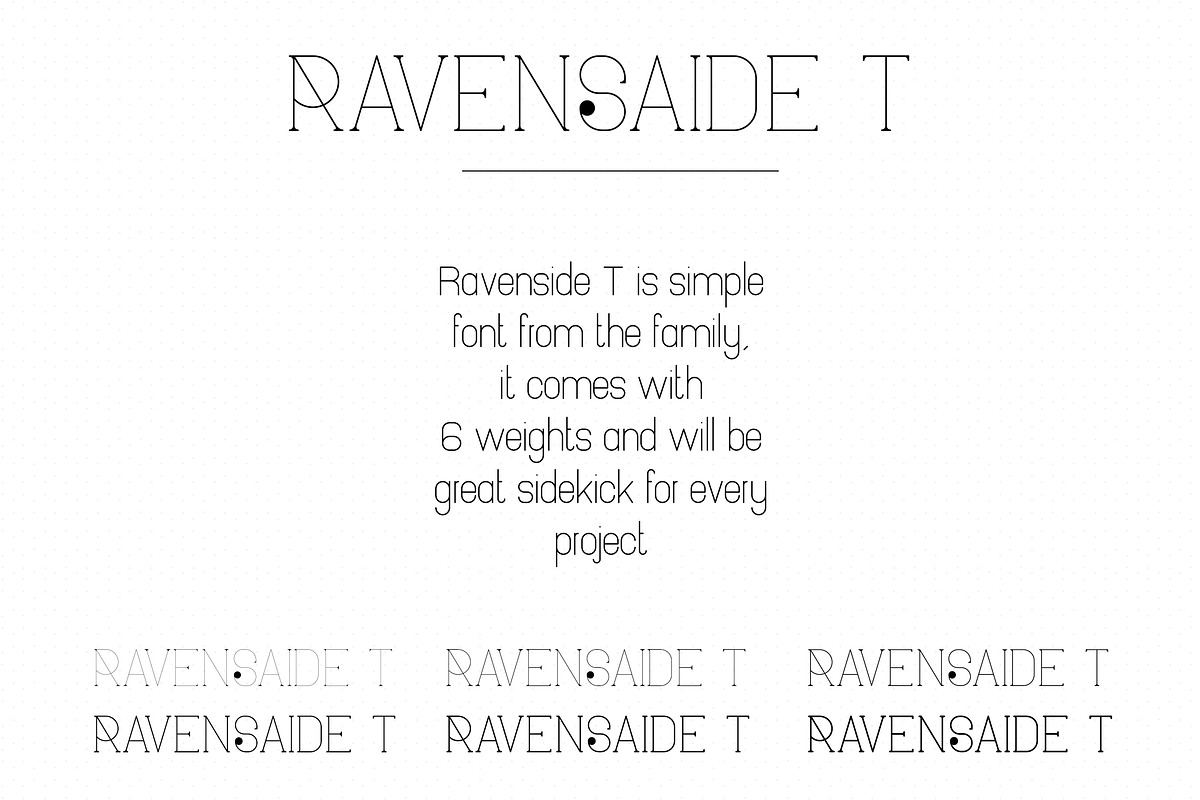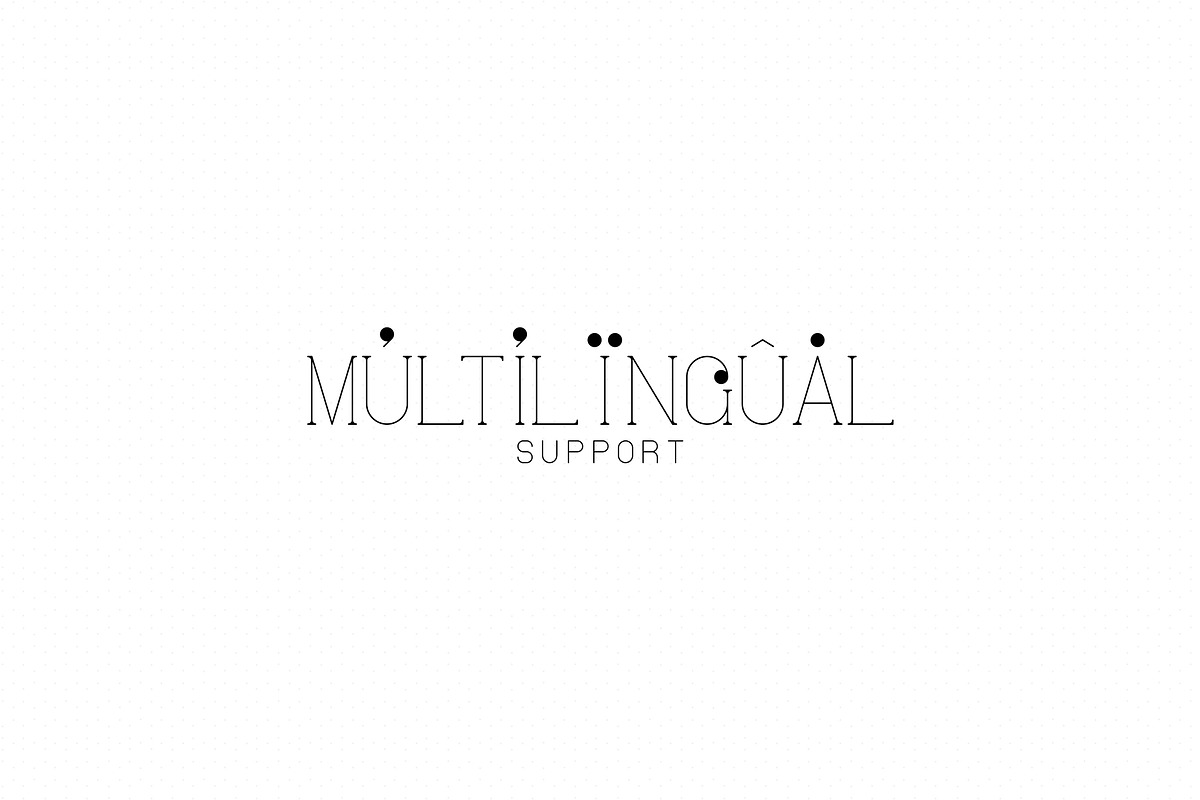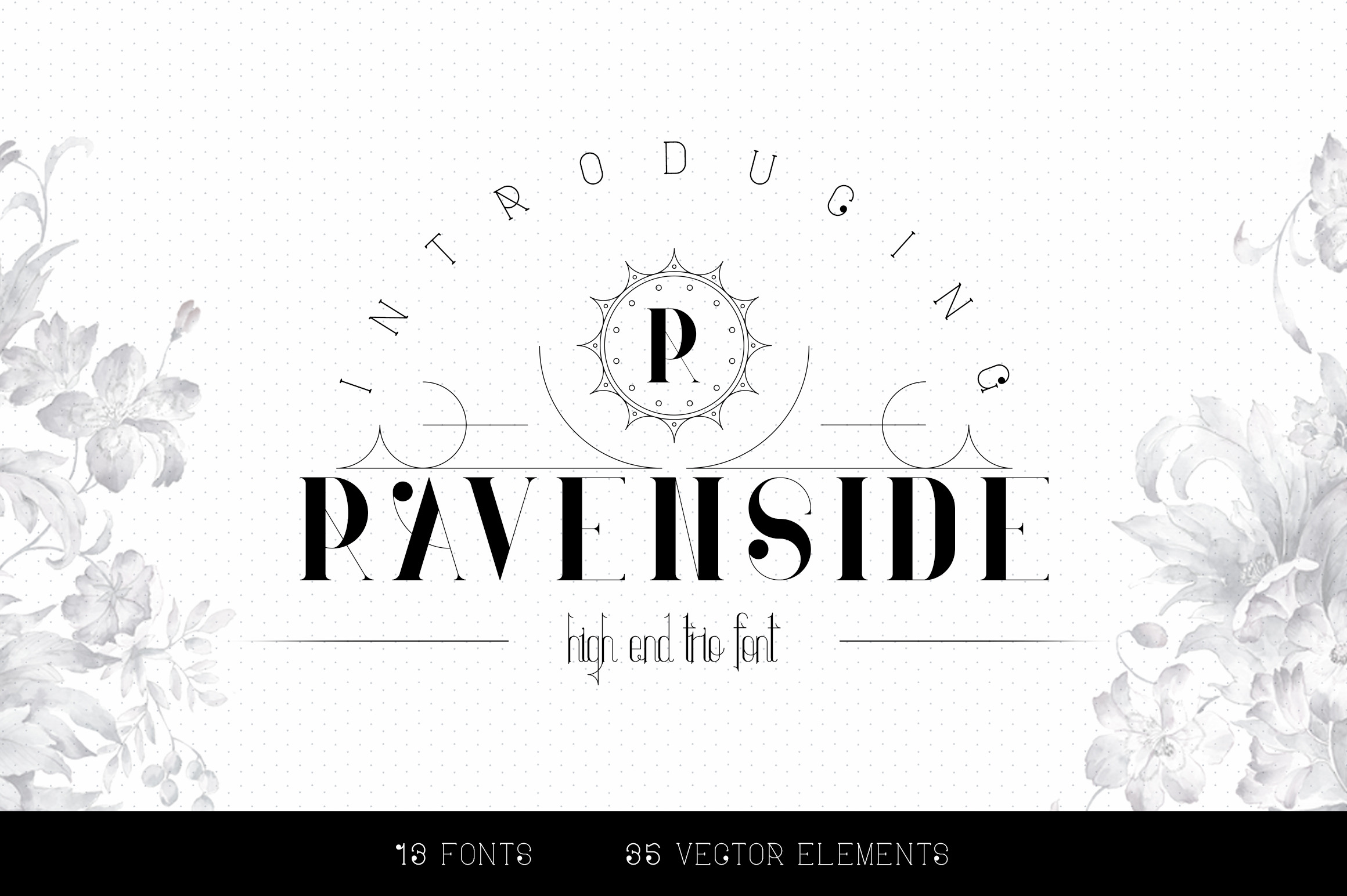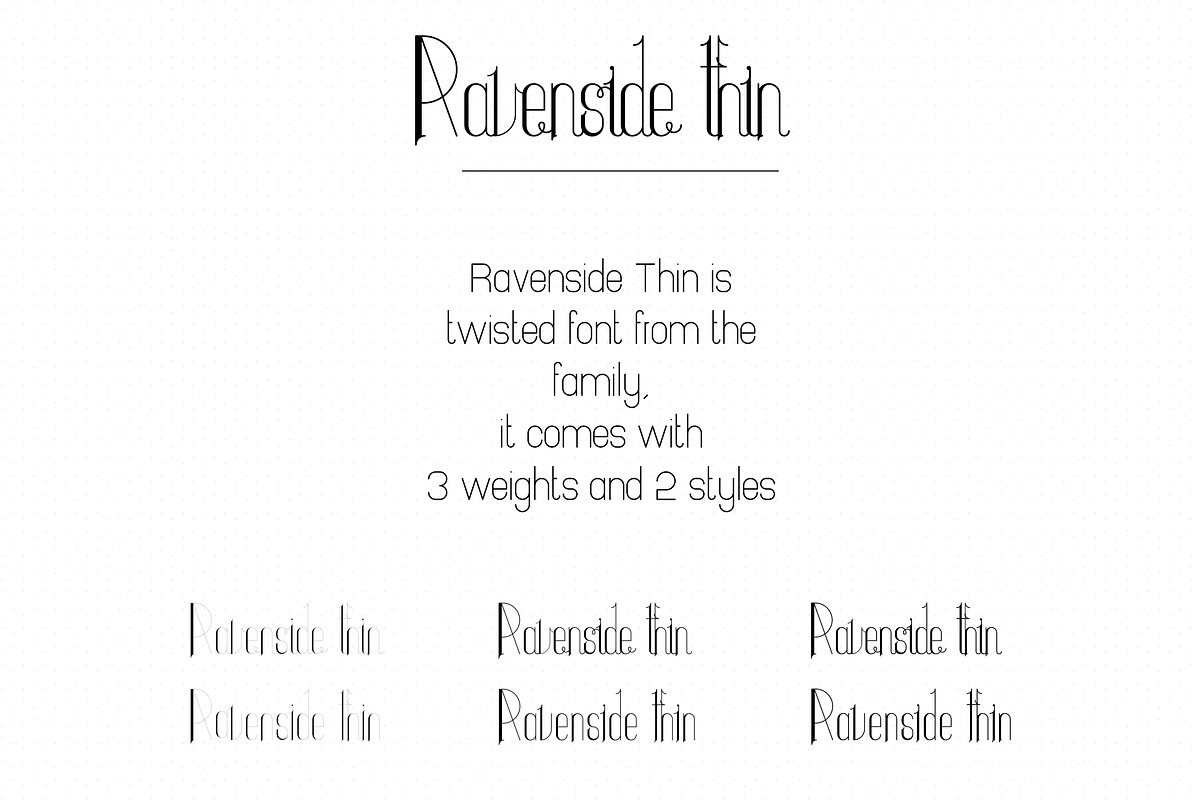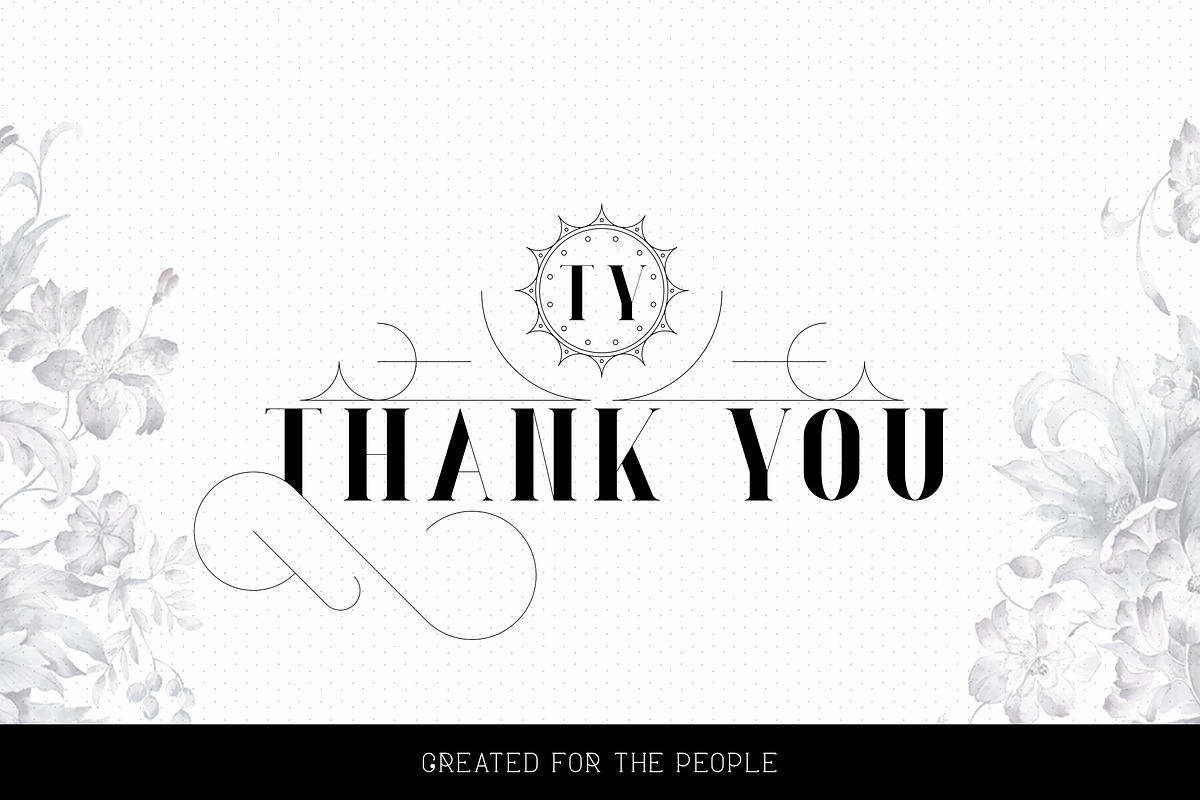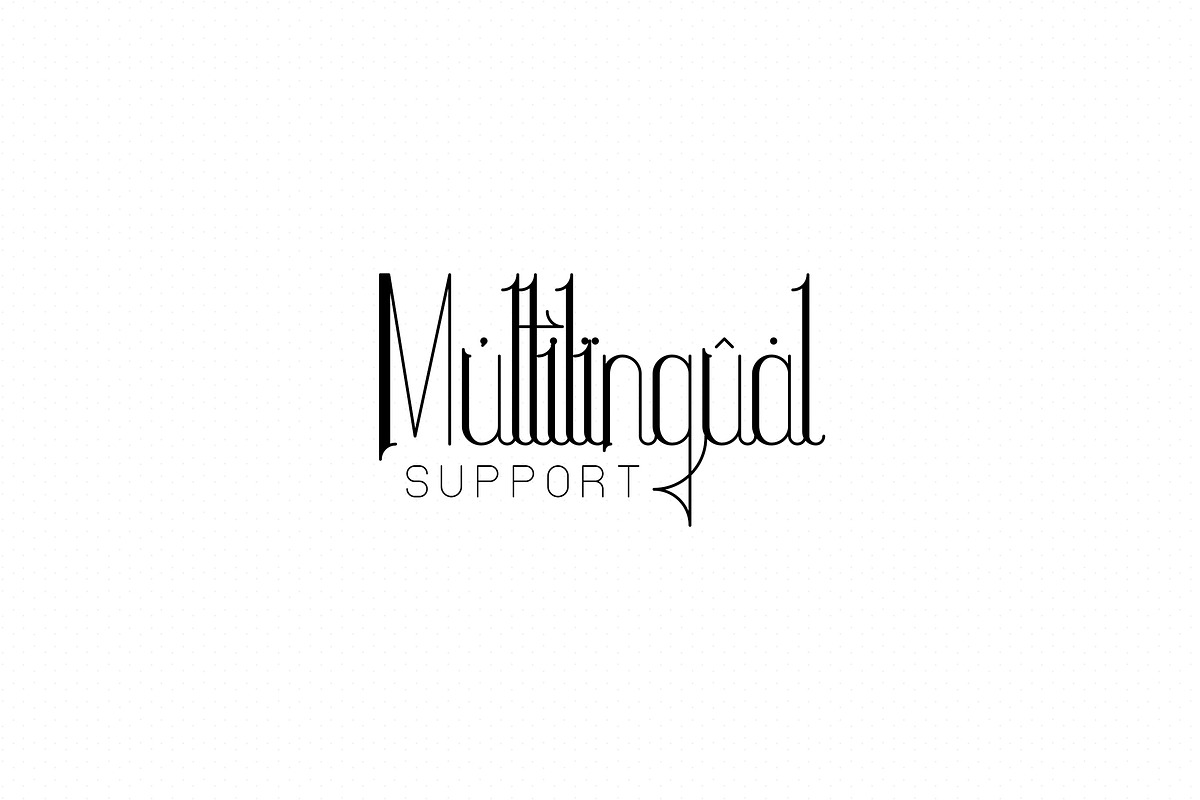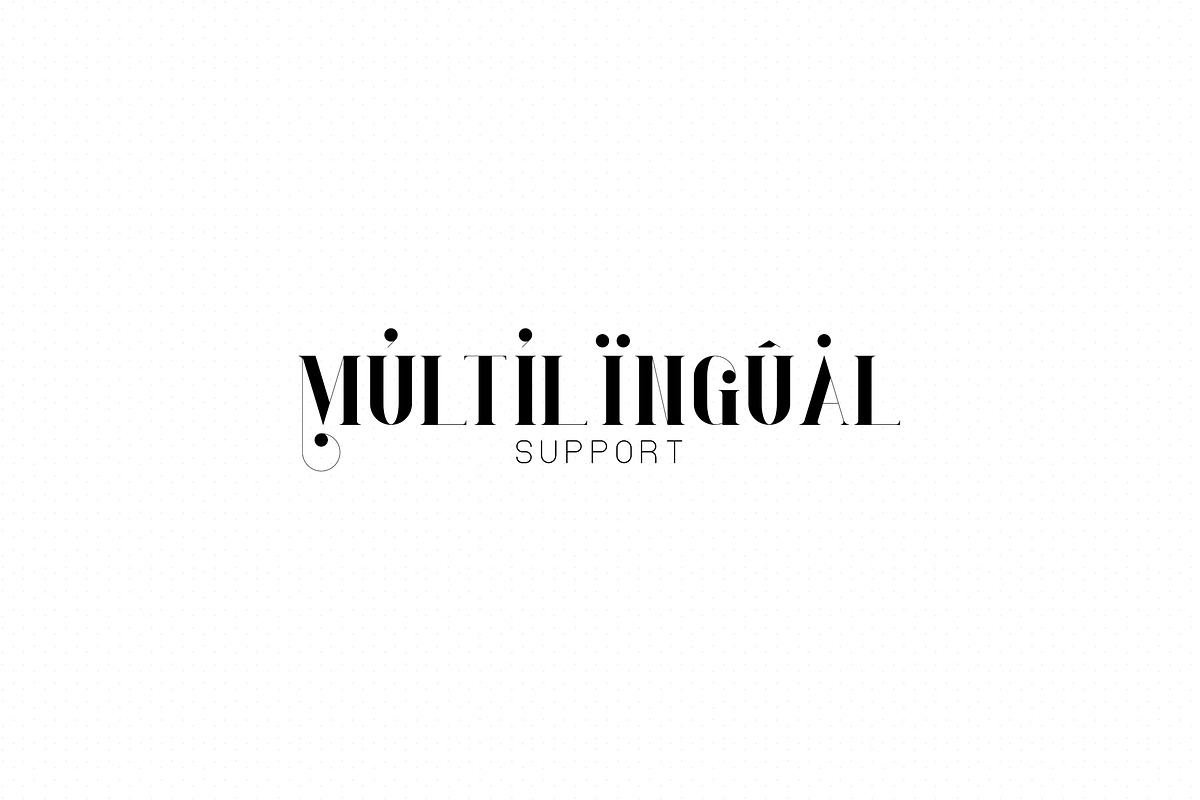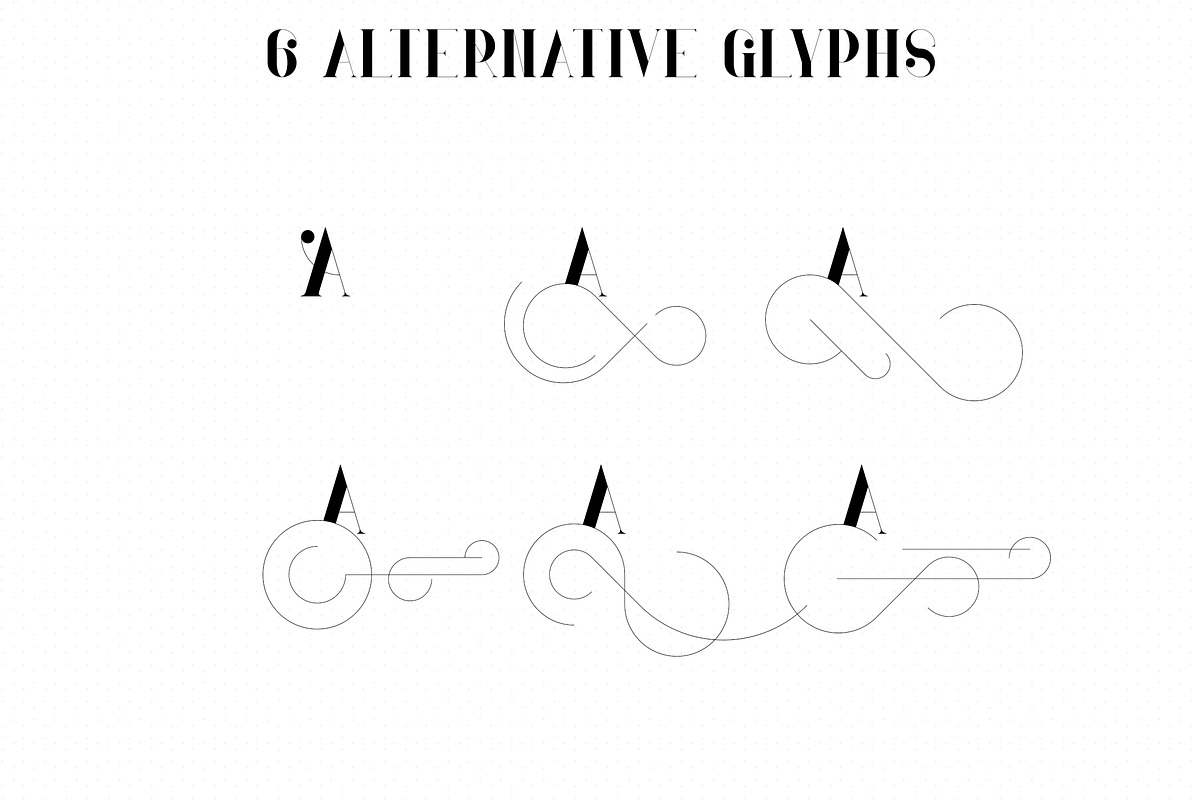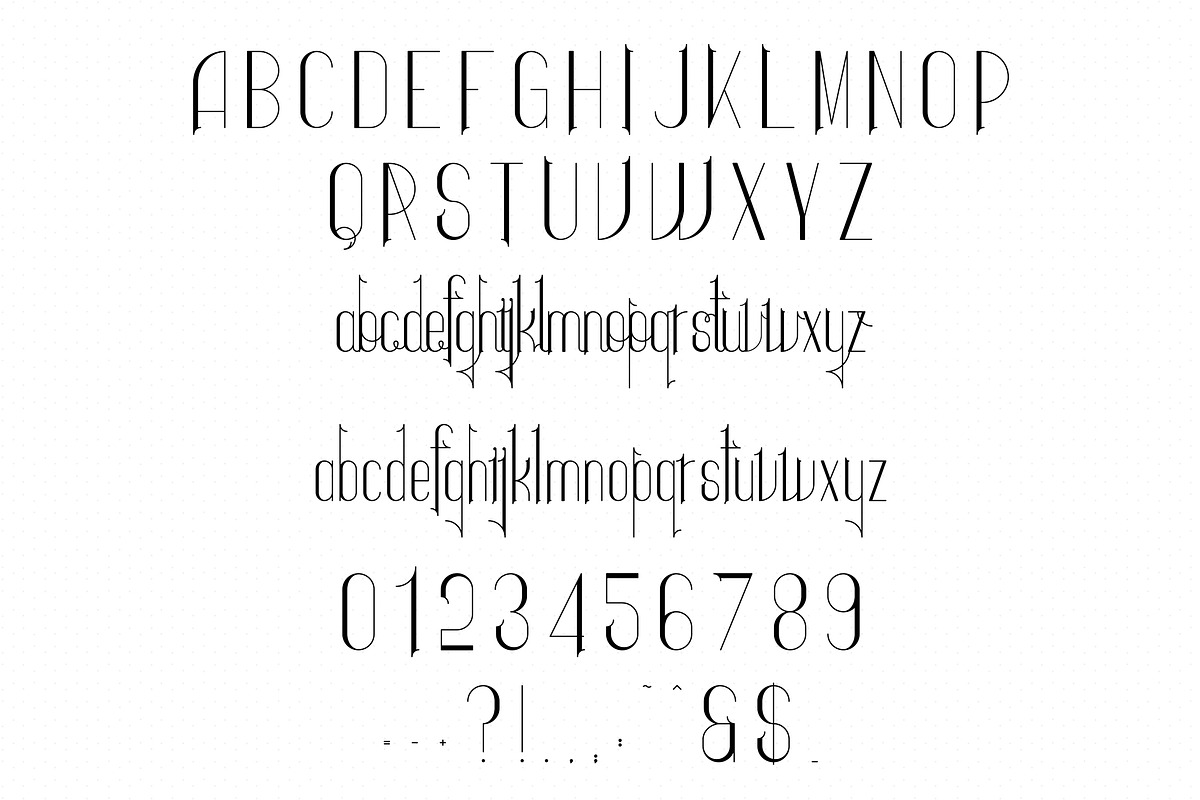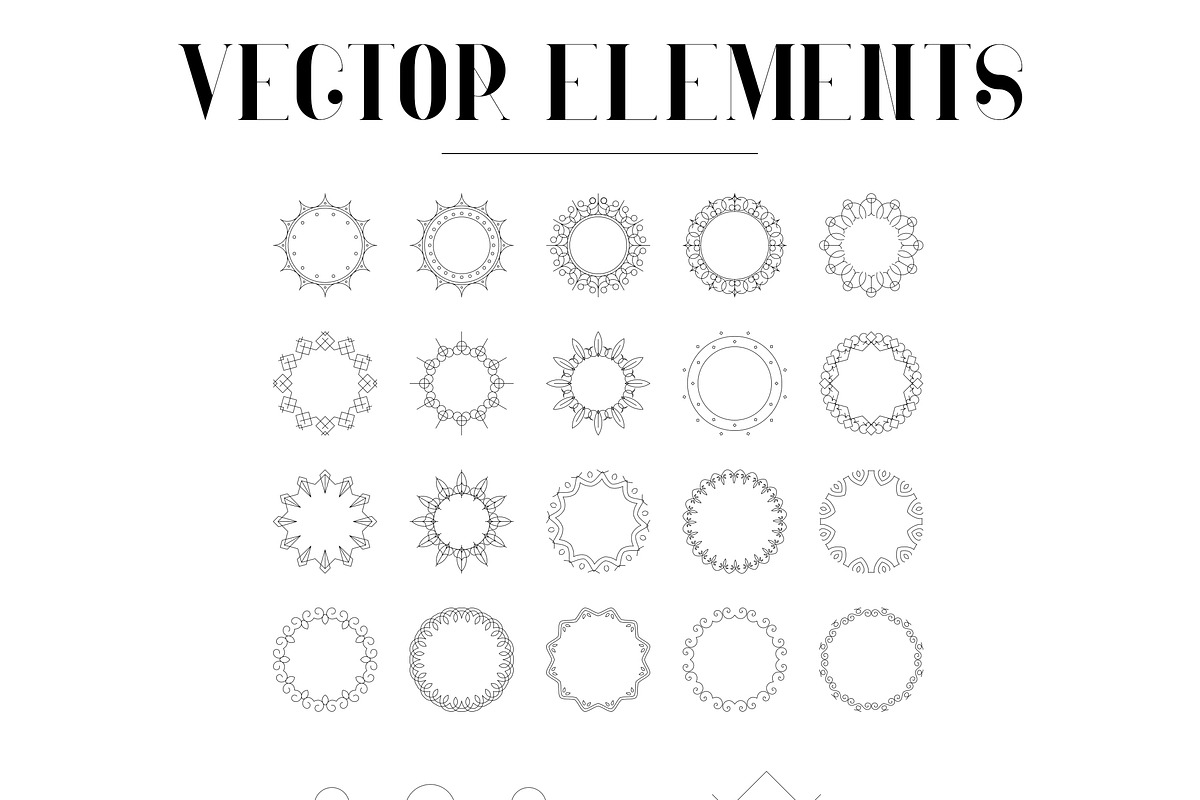
Ravenside is clean, luxurious serif typeface with 13 fonts, additional vector elements and multilingual support. It's a very versatile font that works great in large and small sizes.
Ravenside is perfect for branding projects, home-ware designs, product packaging, magazine headers - or simply as a stylish text overlay to any background image.
- Uppercase,lowercase,numeral,punctuation & Symbol
- Ravenside regular
- Ravenside T - extralight, light, regular, bold, extra bold, black
- Ravenside Thin Linked - light, regular, bold
- Ravenside Thin - light, regular, bold
- Vector Elements